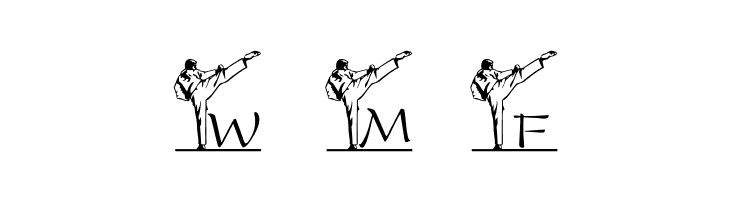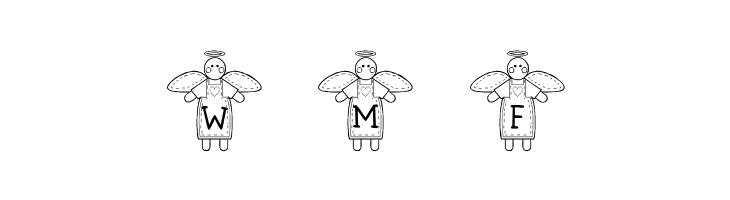
A whimsical serif font with playful dolphin illustrations above each character.
A decorative serif font with characters in ink pots topped by quills.
A whimsical font with characters enclosed in cartoon pig outlines, perfect for playful designs.
A Halloween-themed font with jack-o'-lantern faces in each character.
A decorative font with characters inside floral motifs, ideal for creative projects.
A decorative font combining letters with karate kick figures, ideal for dynamic and thematic designs.
A whimsical, angel-themed font with hand-drawn characters.